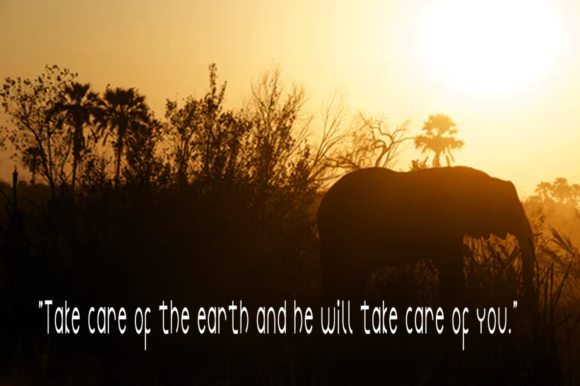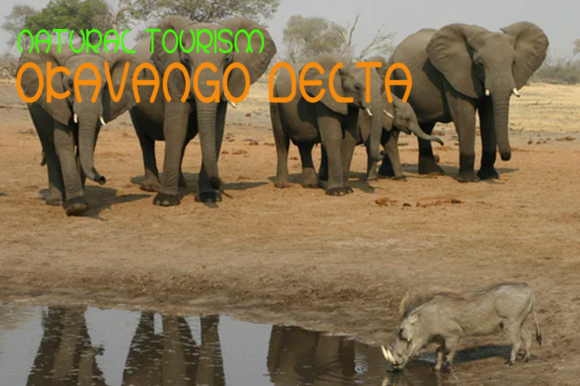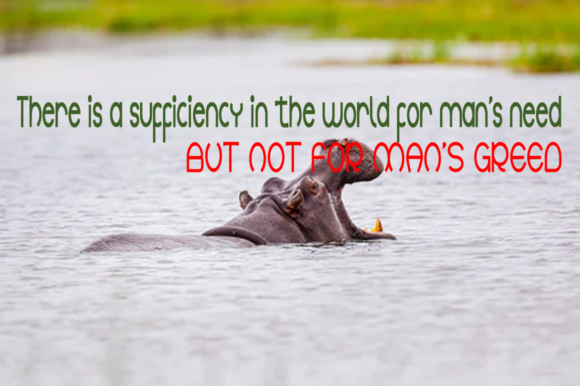
Introduction to Botswana Font
Botswana is a modern and unique sans serif font.
Why Choose Botswana Font?
Botswana Font offers exceptional quality and versatility, making it a valuable addition to your design toolkit. Whether you’re creating for personal projects or commercial use, Botswana Font delivers professional results.